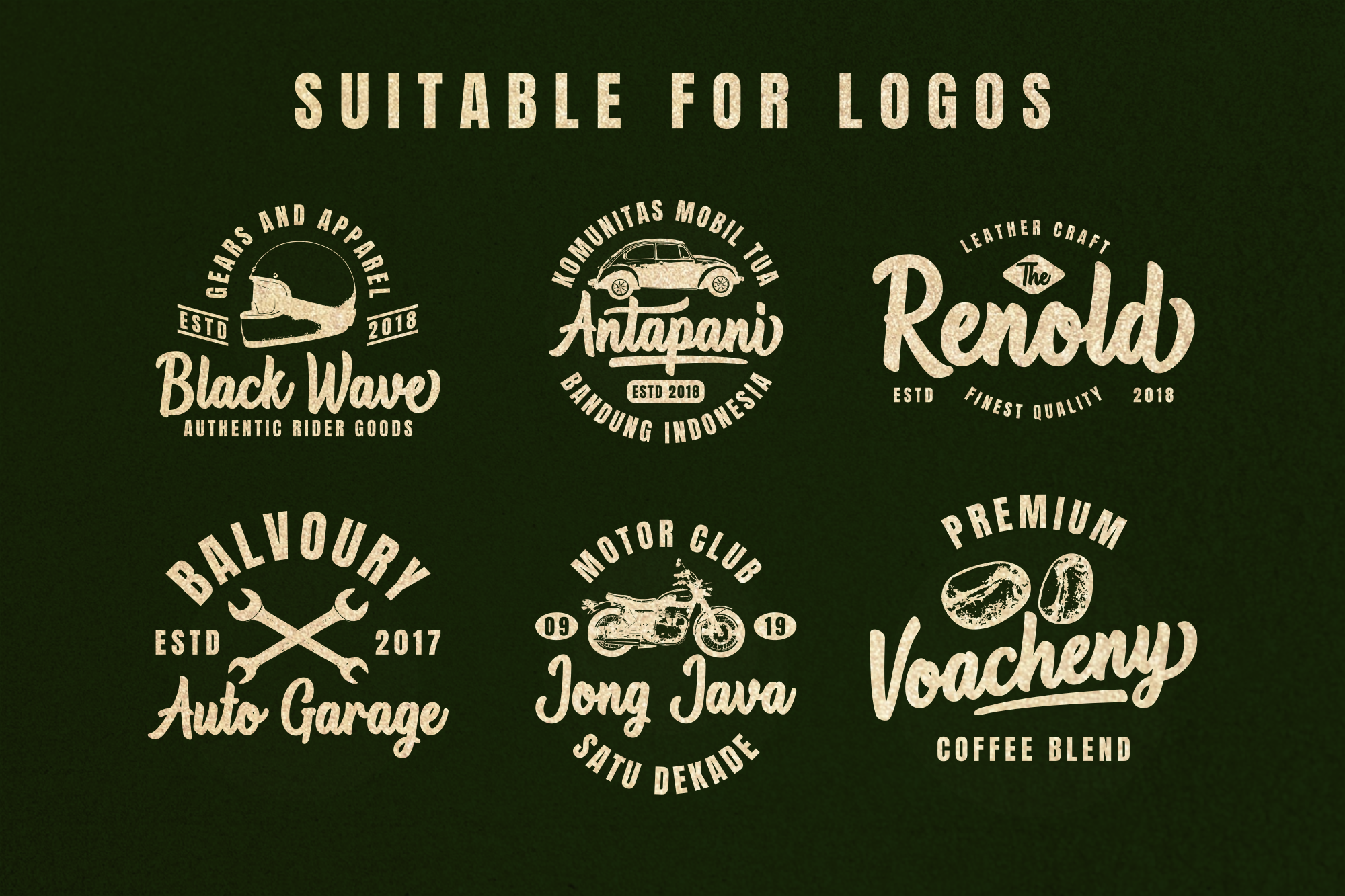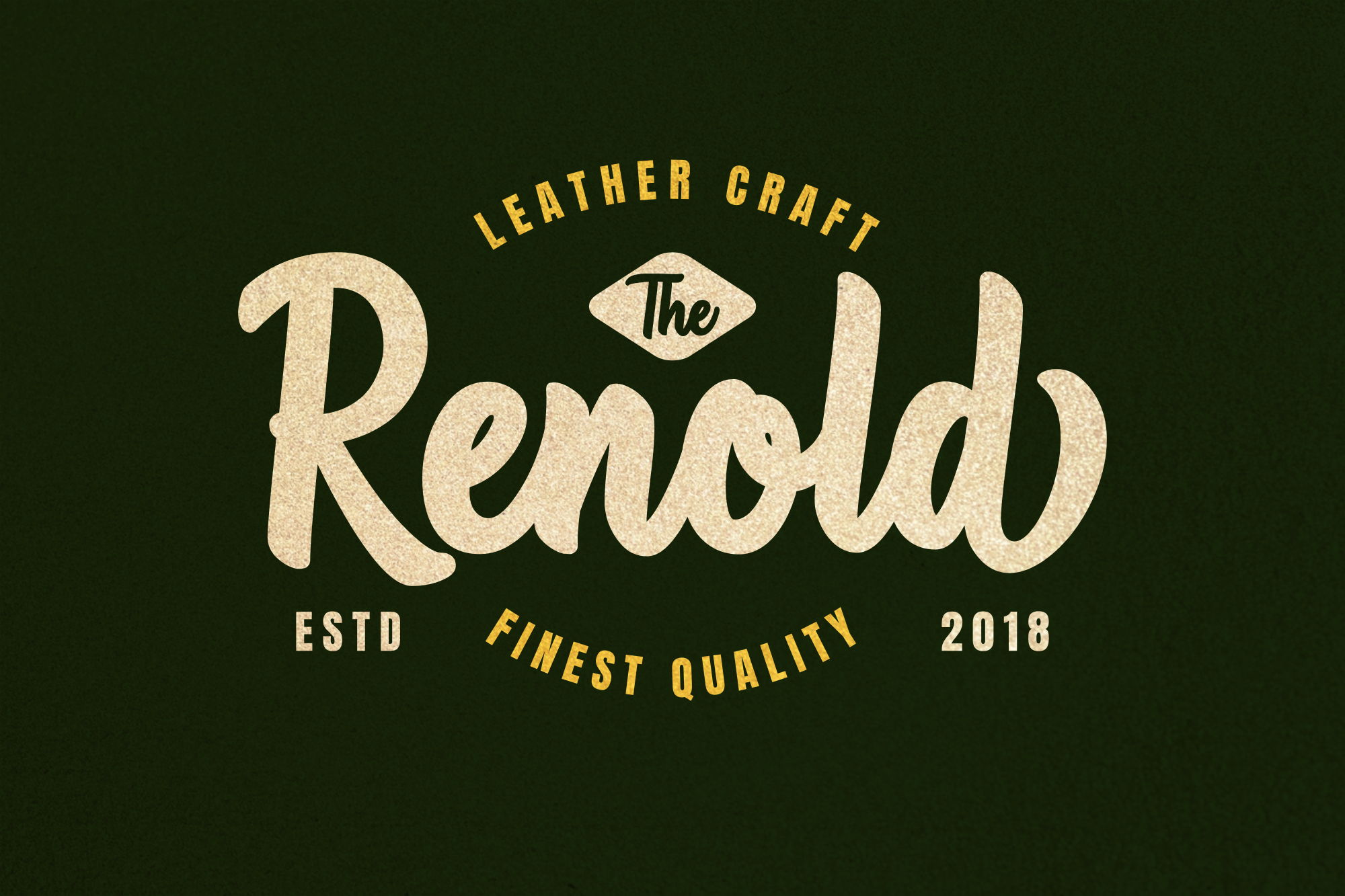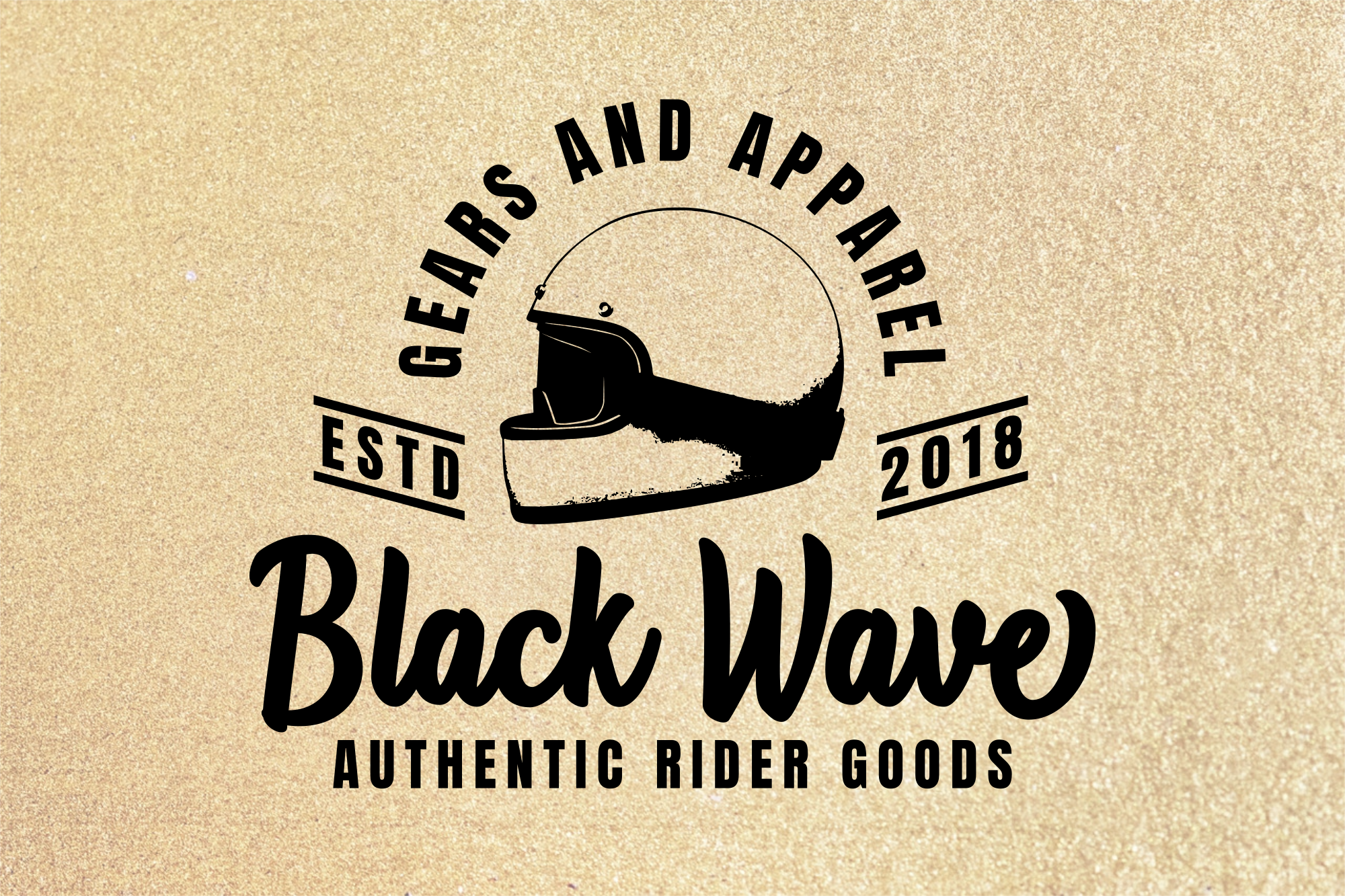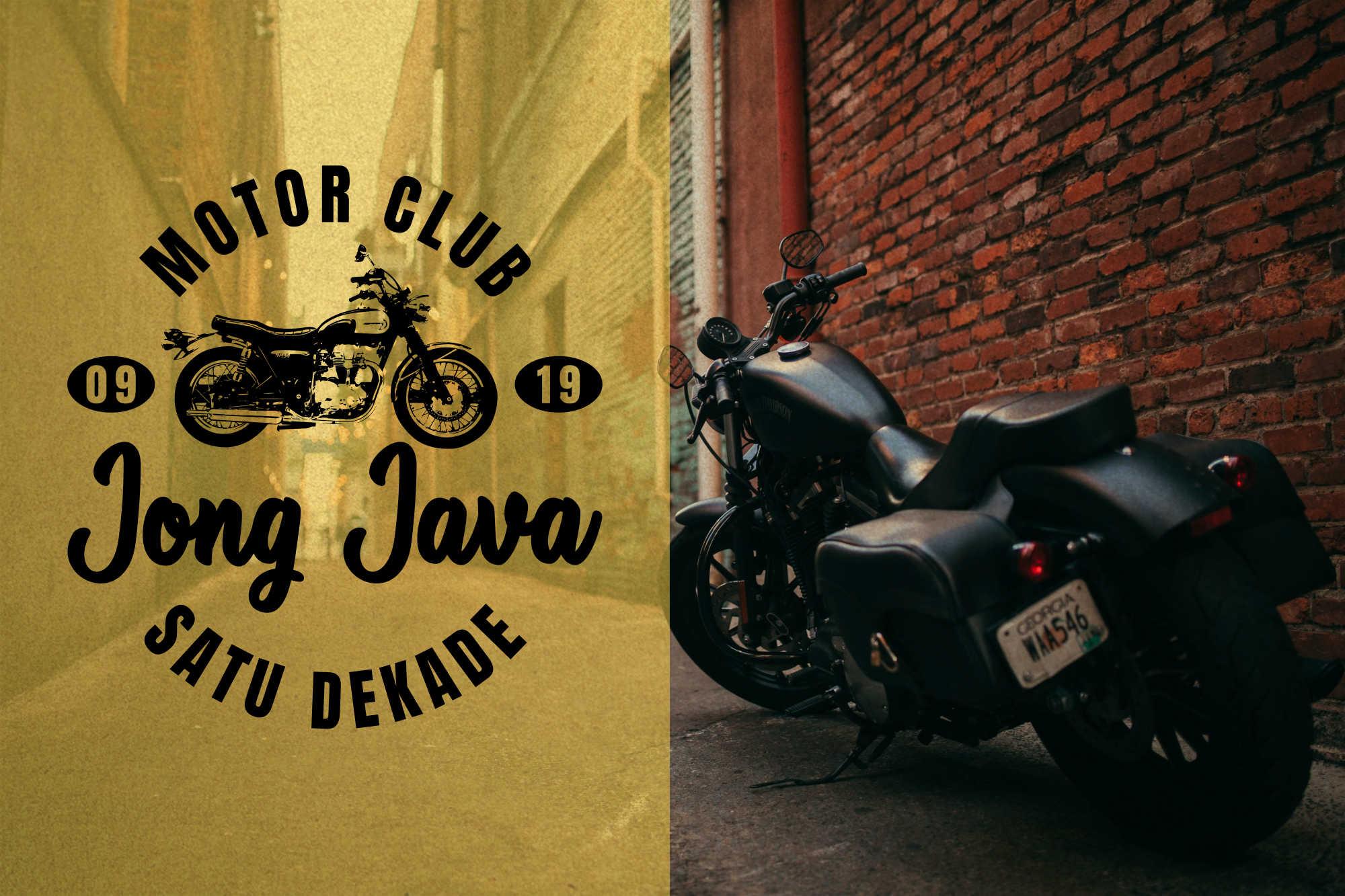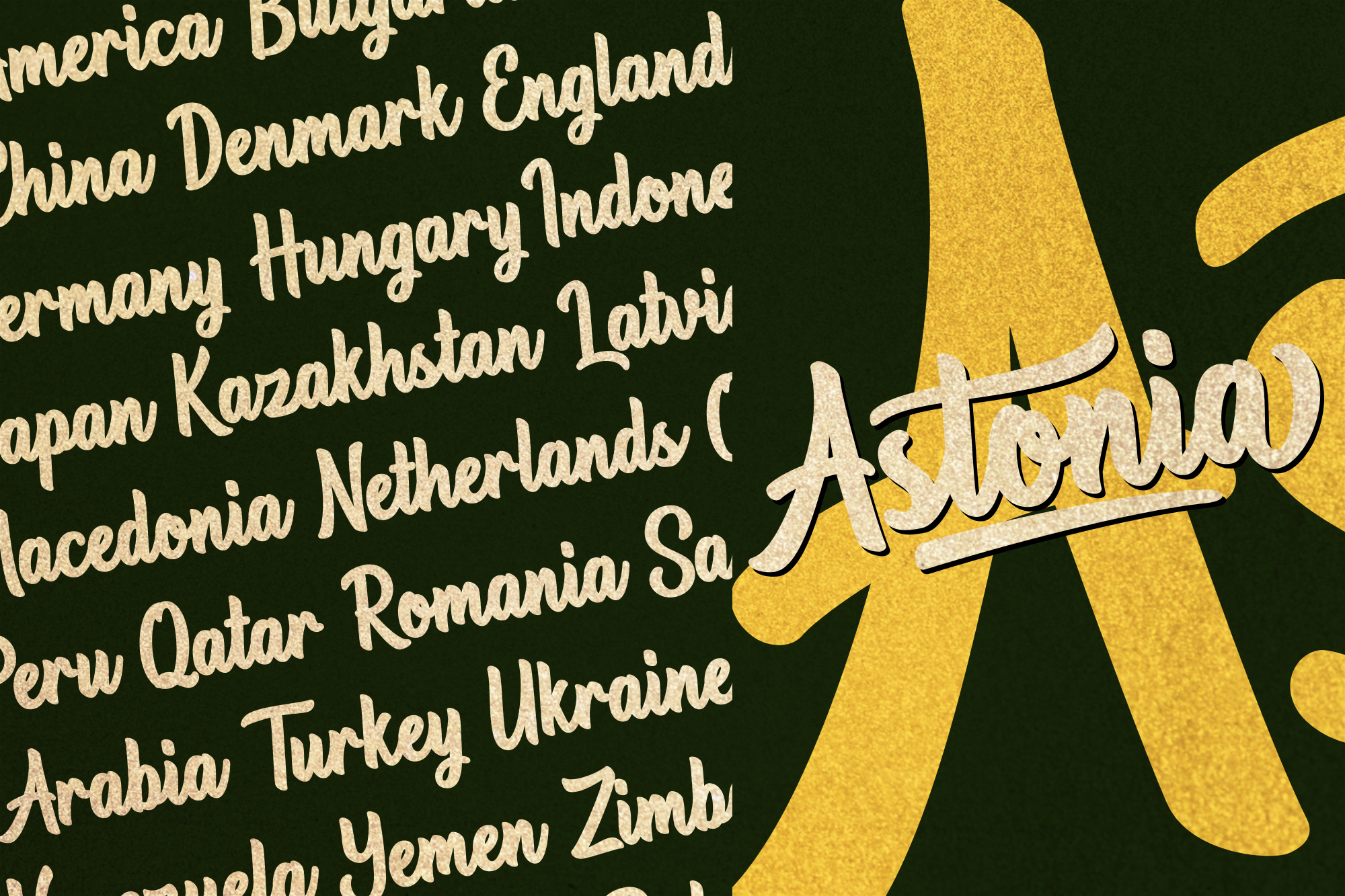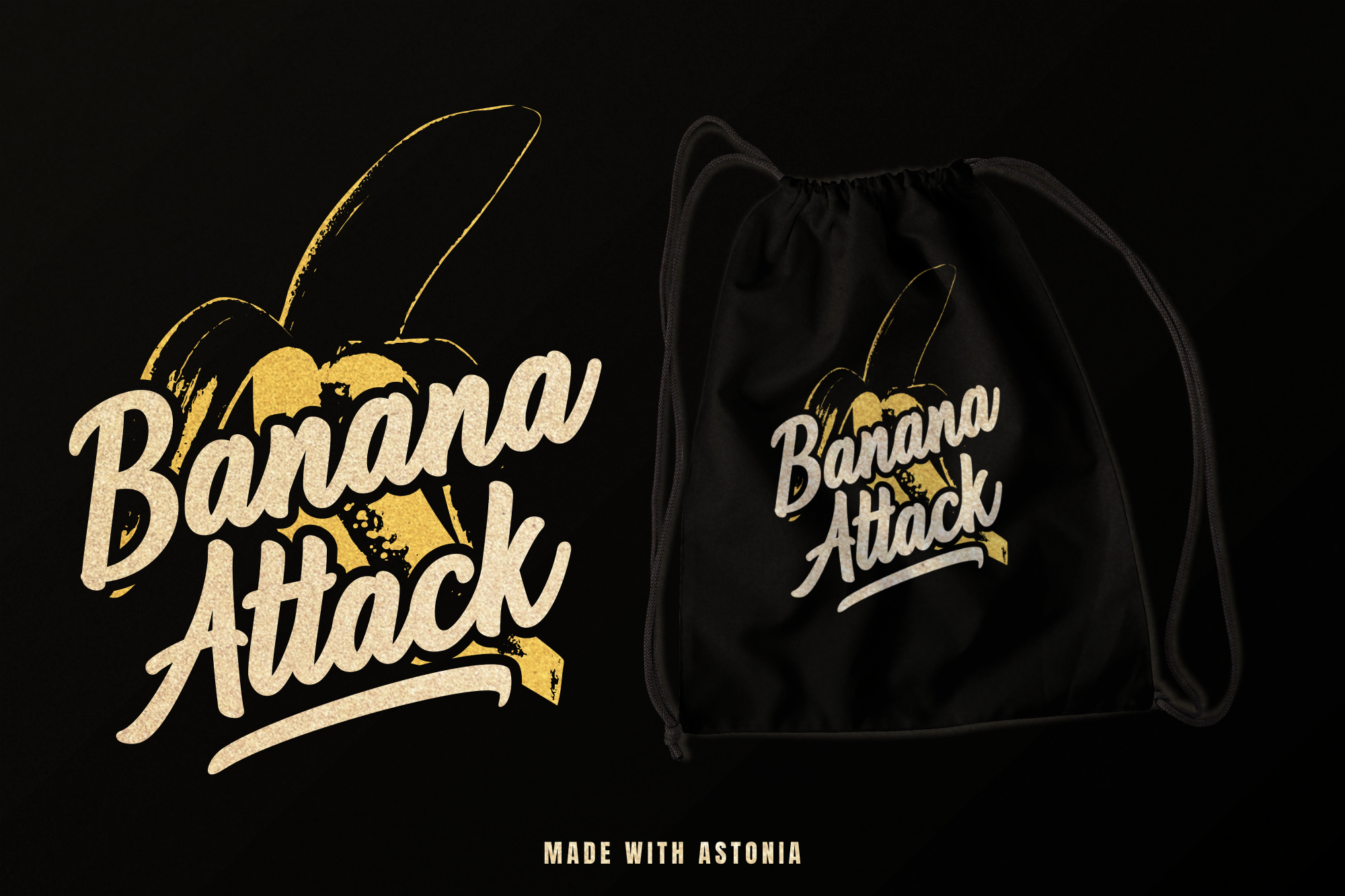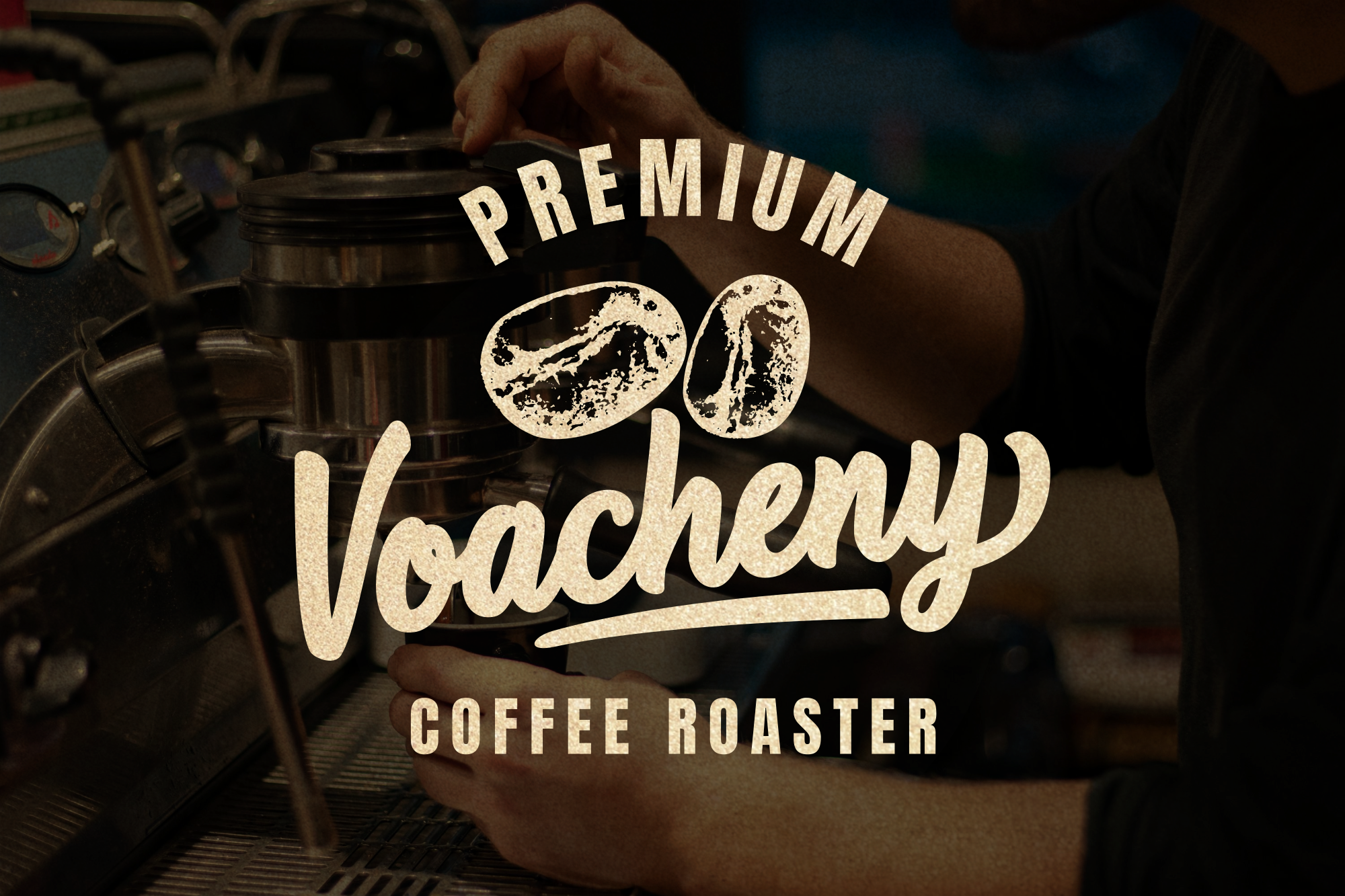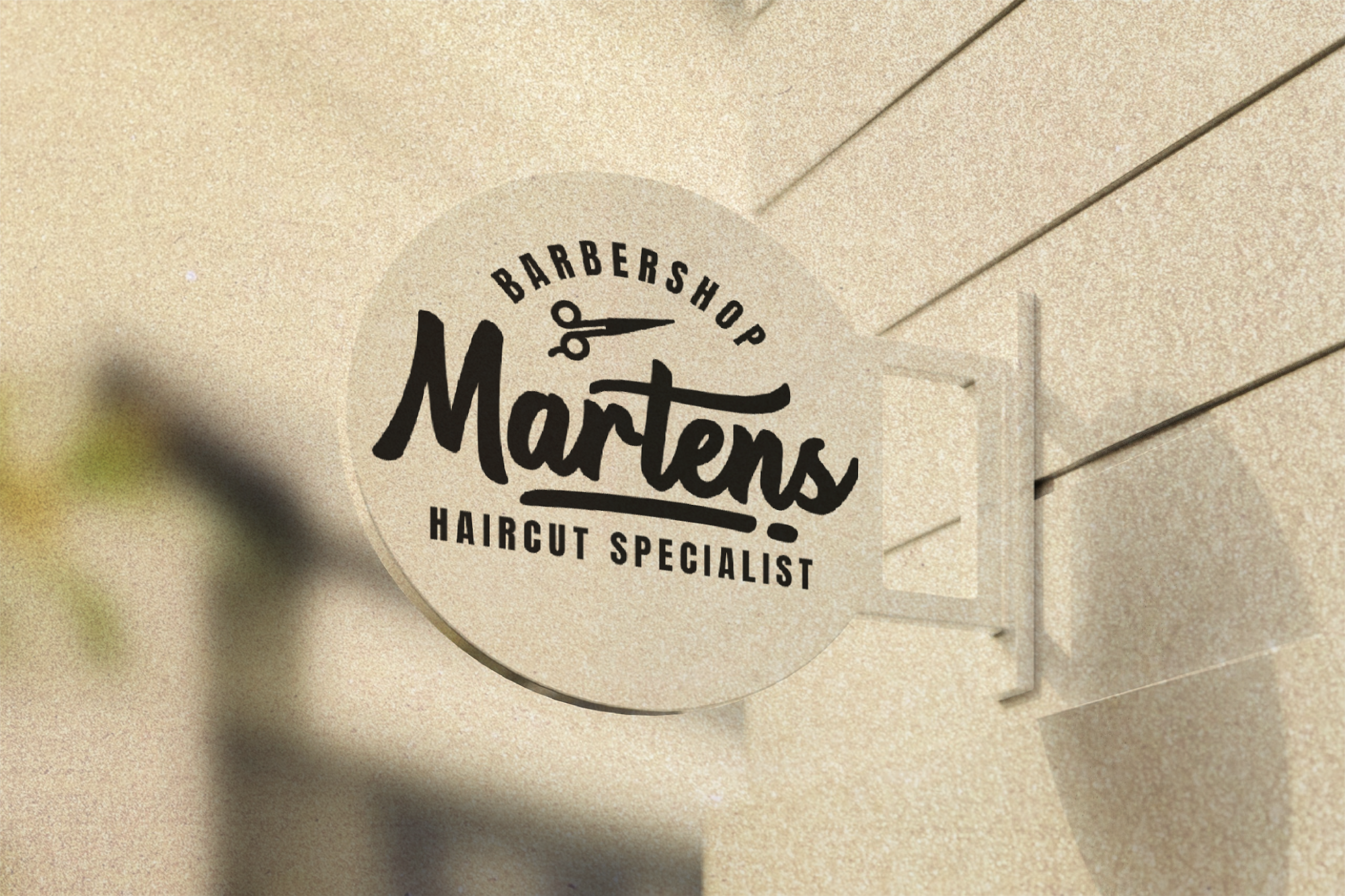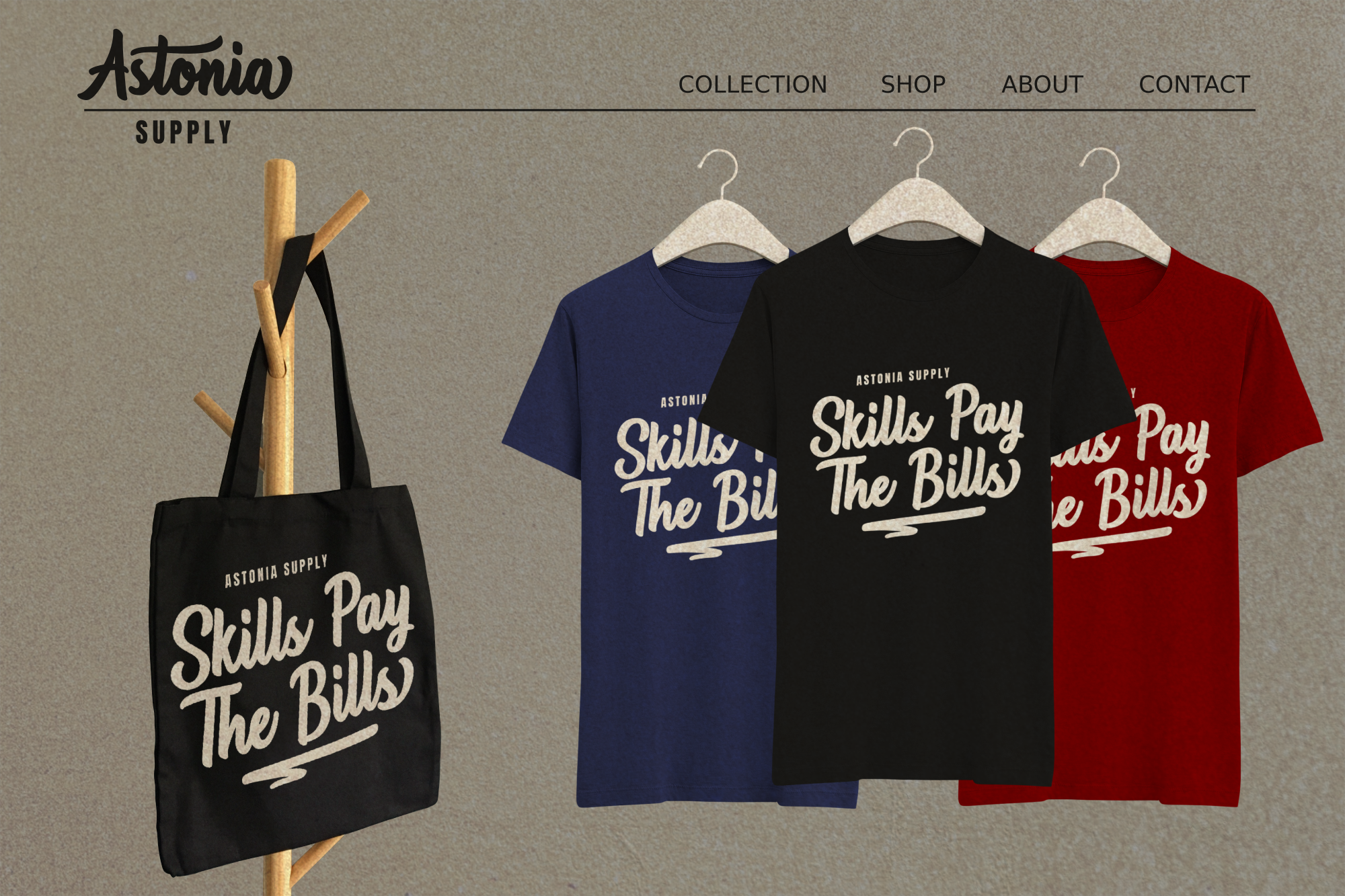
Astonia - Bold Script Font
Astonia is a strong and bold script font with rounded curves and a vintage personality. It has a confident look that works beautifully for branding.
Astonia is a strong and bold script font with rounded curves and a vintage personality. It has a confident look that works beautifully for branding. It is perfect for logos, badges, packaging, posters, apparel, signage, labels, and more.
Logos, badges, packaging, posters, apparel, signage, labels,